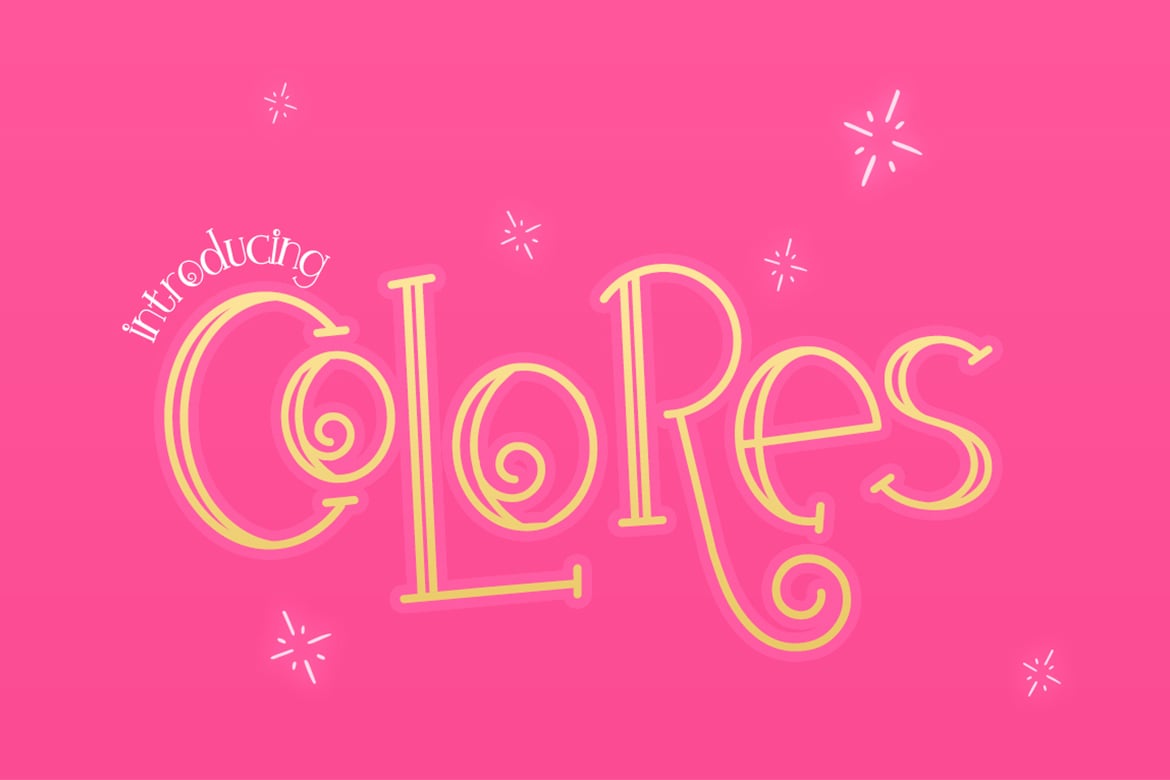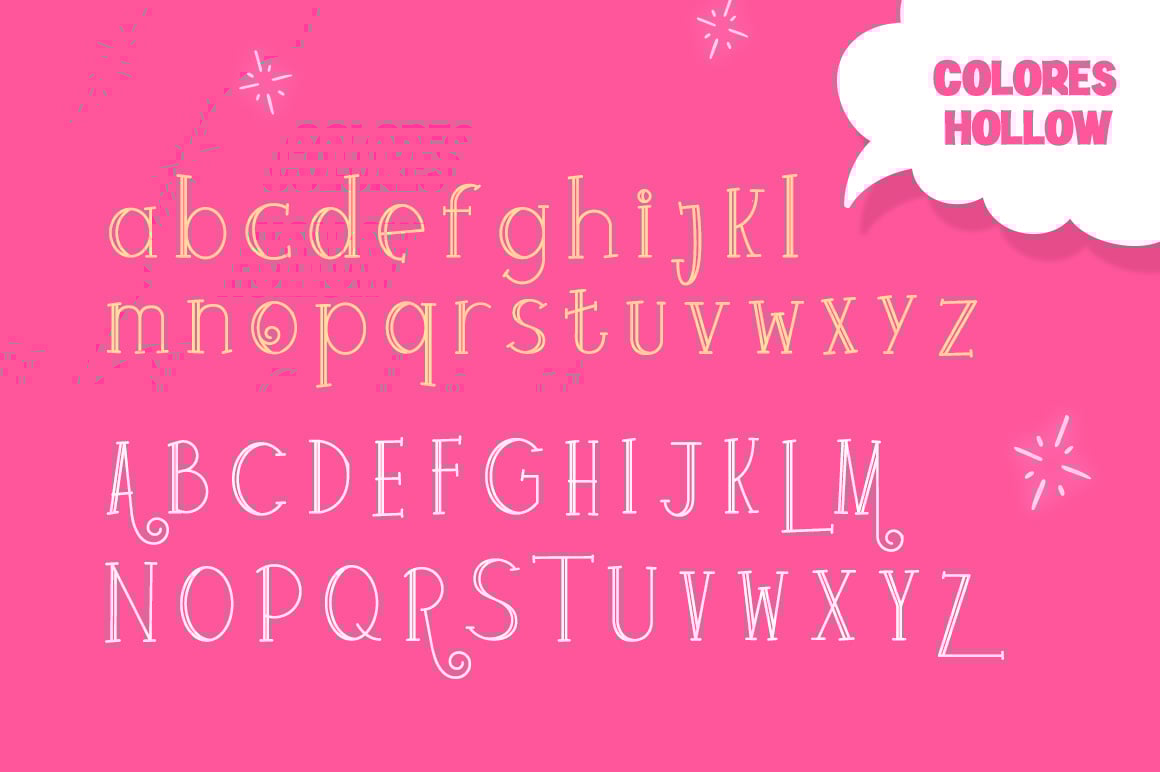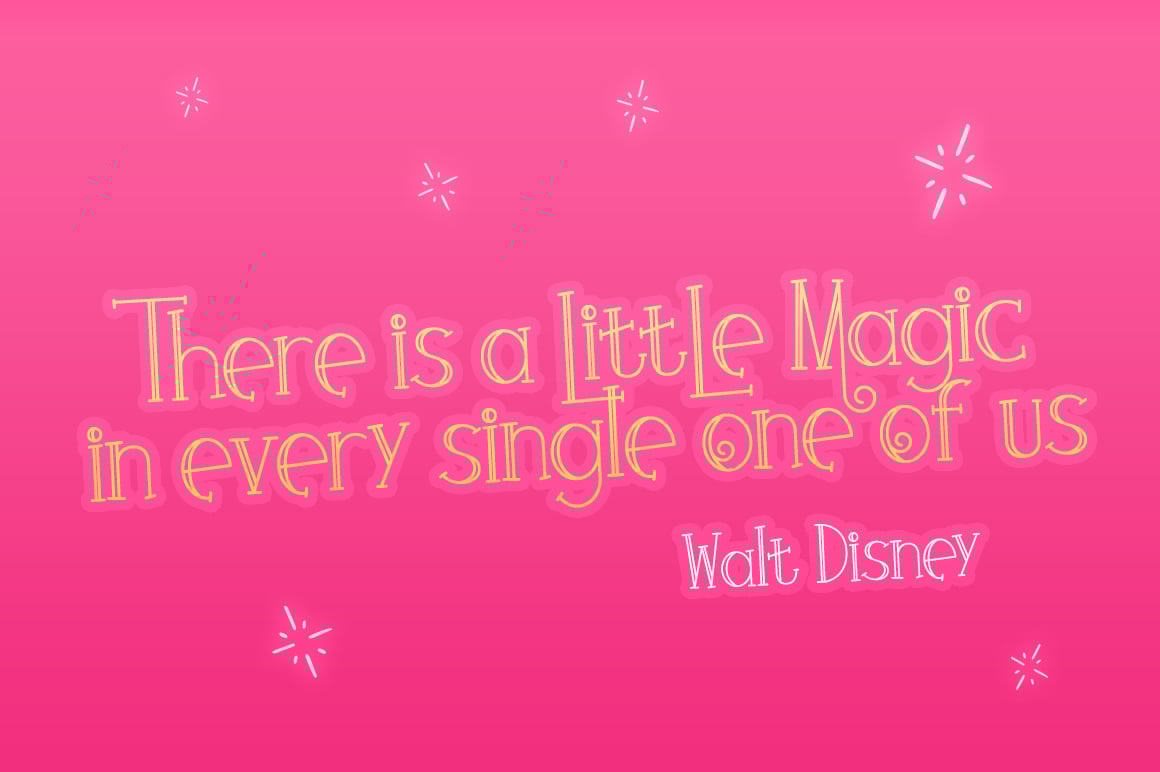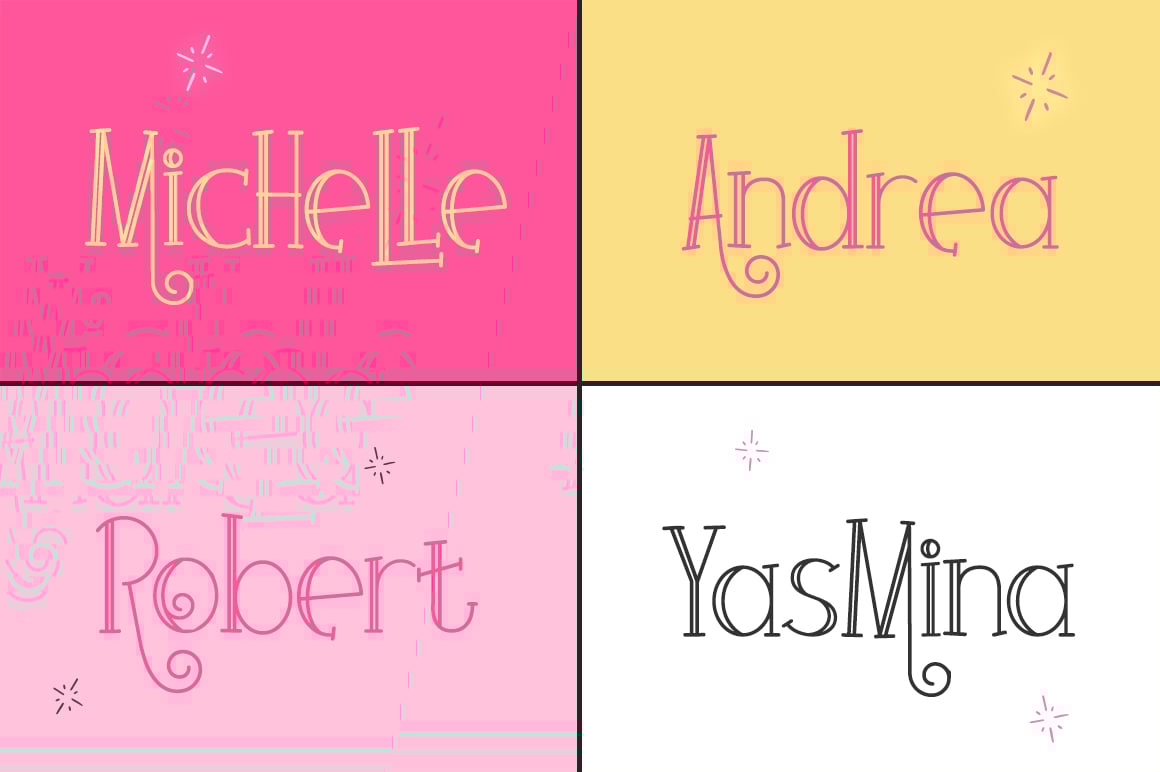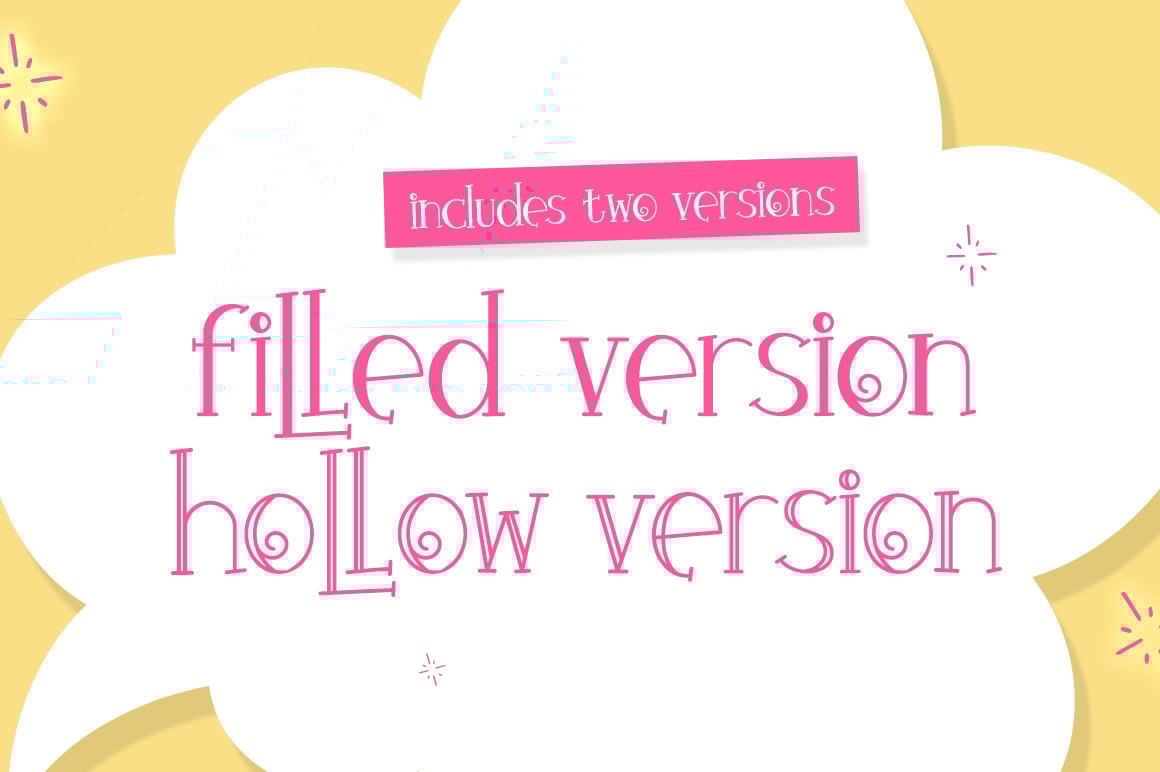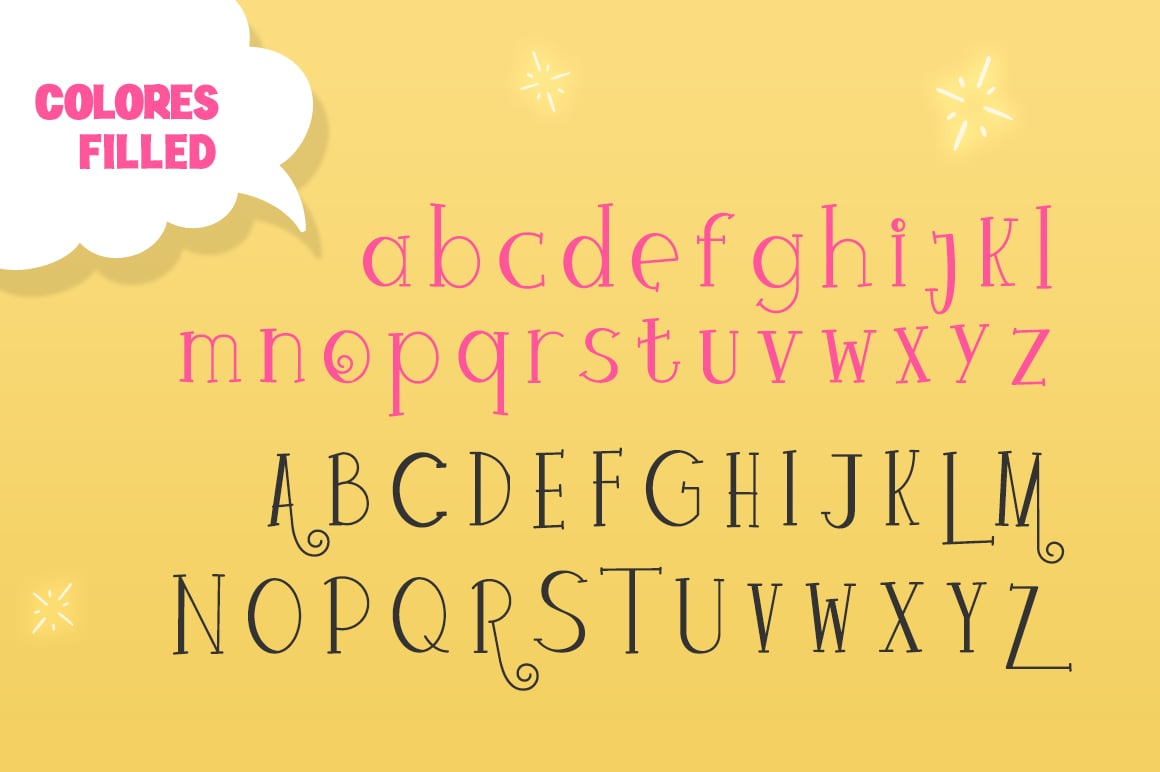
Colores Font Duo
Bring a little color to your designs with our new font duo Colores. You can combine the filled and hollow versions to create unique and exciting creations or use alone. Fun and whimsical this font doesn’t take itself too seriously.